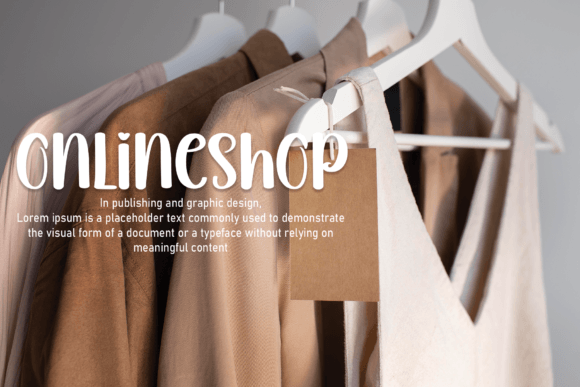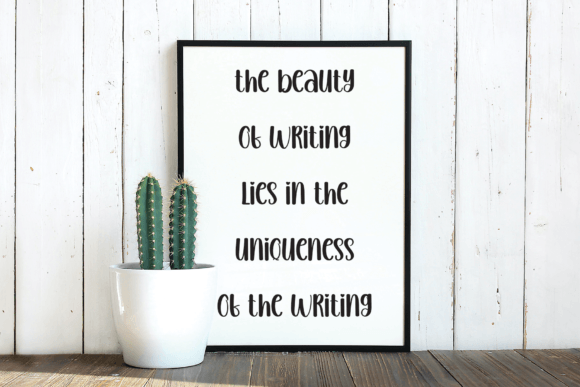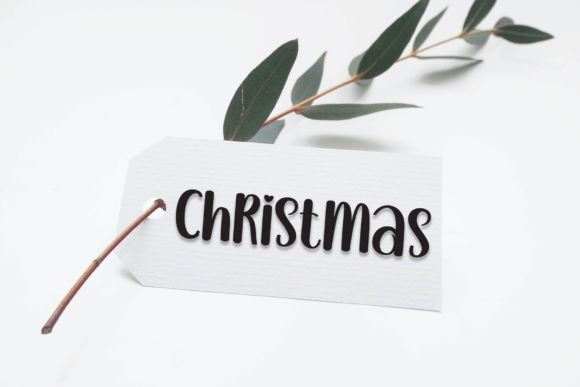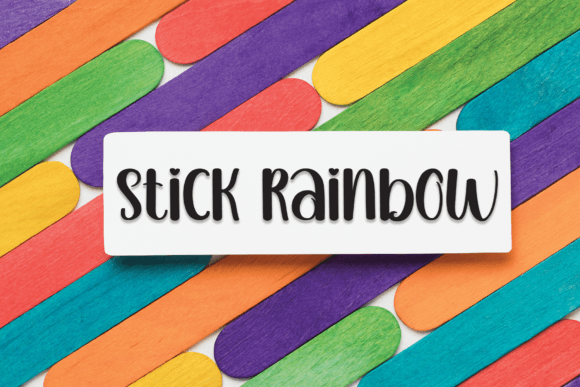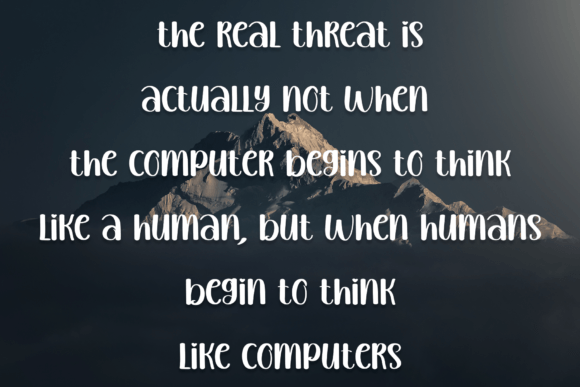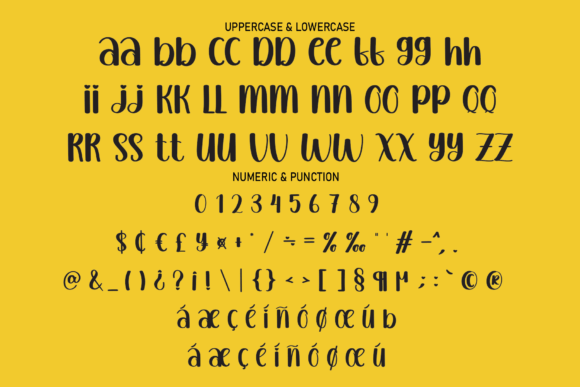
Discover the Perfect Blend of Creativity
There’s nothing quite like the feeling of sitting down with a blank canvas and a fresh idea, surrounded by an array of colors and fonts, waiting to bring your vision to life. But sometimes, no matter how hard you try, your design just doesn’t quite have that extra something – until you stumble upon the perfect font.
Enter Juice Mango Font, a cool and relaxed handwritten font that’s guaranteed to add a neat and natural feel to your next project. Whether you’re designing a greeting card, creating a social media campaign, or simply looking to give your website a personal touch, Juice Mango Font is the perfect addition to your toolkit. Its versatility and unique charm make it a valuable asset for any designer looking to add a little extra something to their work.
Juice Mango Font Key Features
- Font Family: Juice Mango is a modern, sans-serif font family designed for digital use.
- Character Count: Juice Mango font family includes over 700 glyphs, ensuring comprehensive language support and a wide range of characters.
- Size and Resolution: Designed to be highly legible at various sizes and resolutions, including small sizes and low-resolution displays.
- Unique Characteristics: Features a unique blend of modern and minimalist design elements, making it perfect for modern branding and digital applications.
Juice Mango Font Review
Overall, I think the Juice Mango Font is a fun and playful addition to any design project. It works well in situations where you want to add a pop of color and energy to your text. ✨ I particularly appreciate its versatility – it can be used in a wide range of applications, from digital signage to product packaging.
- ✨ Unique and eye-catching design: The font’s bold and colorful style makes it stand out and grab attention.
- ✨ Versatility: As mentioned, it can be used in a variety of applications, from digital to print.
- ✨ Friendly and approachable: The font’s fun and playful vibe makes it perfect for projects targeting a younger audience.
- ⚠️ Limited legibility: In some cases, the font’s bold style can make it difficult to read, especially at smaller sizes.
- ⚠️ Not suitable for formal projects: The font’s playful vibe may not be suitable for formal or professional projects, such as financial reports or business presentations.
Overall, I think the Juice Mango Font is a great choice for designers looking to add some fun and energy to their projects. While it may not be suitable for every project, it’s a great option for those looking to create a playful and eye-catching design.
Tips for Getting the Most Out of Juice Mango Font
Here are some tips for getting the most out of the Juice Mango Font:
- Use the font in bold or italic styles to add emphasis to your text.
- Combine the font with other fonts to create a unique and visually appealing design.
- Use the font in headings and titles to create a cohesive and professional look.
The Juice Mango Font is perfect for:
- Creative and artistic designs.
- Use bold and colorful illustrations to create visual interest and break up the text.
- Pair the Juice Mango Font with a minimalist background design to let the font be the focal point.
- Experiment with different font sizes and styles to create a hierarchy of information and draw attention to important menu items.
- Use a mix of digital and hand-drawn elements to create a unique and eclectic design.
- Pair the Juice Mango Font with a bold and colorful background design to create a fun and playful atmosphere.
Q: What is the character set for the Juice Mango Font?
The Juice Mango Font includes a wide range of characters, including Latin, Greek, and Cyrillic alphabets, as well as punctuation and symbols. The font also includes support for various languages, including English, Spanish, French, German, Italian, and many others. For a complete list of supported languages and characters, please refer to the font’s documentation.